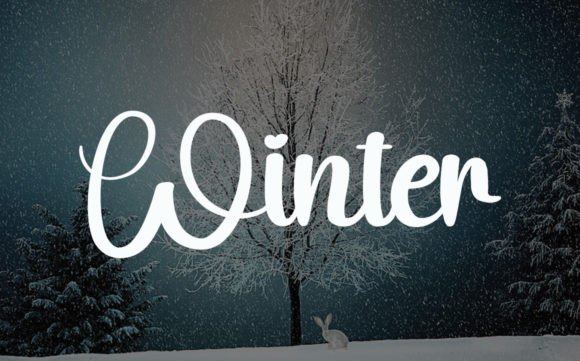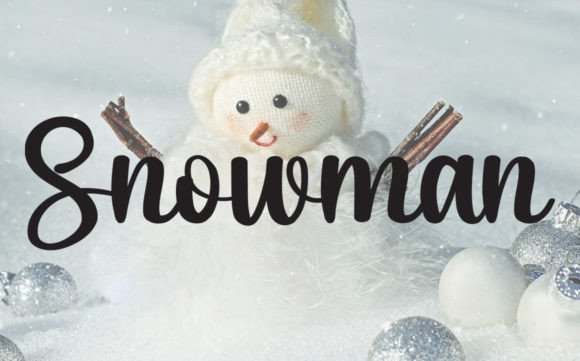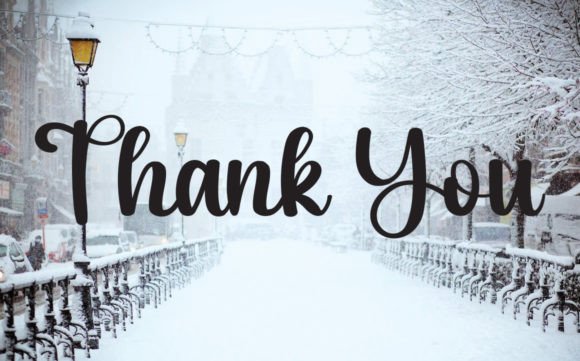
Snowfall Font
The Snowfall Font Download is a sweet and delicate handwritten script designed to add romance and beauty to your projects. With dainty, joyful strokes and a soft handwritten flow, this font creates warmth in every design. Whether you are working on wedding invitations, greeting cards, or digital graphics, Snowfall provides an elegant handwritten accent that enriches your creative work.
A Delicate Script with Romantic Style
The Snowfall script font combines graceful handwritten details with a balanced structure. As a result, it feels timeless, versatile, and stylish. Furthermore, it adapts easily between small stationery projects and larger branding work, making it suitable for hobbyists and professional designers alike.
Handwritten fonts always create intimacy and authenticity. The Snowfall Font is ideal for wedding invitations, thank you notes, birthday cards, and seasonal greetings. Because of its dainty handwritten character, every card looks heartfelt and polished. In addition, it ensures your stationery leaves a lasting romantic impression.
Branding and Logo Design with Snowfall Font
Typography defines brand personality. The Snowfall handwritten font is excellent for boutique logos, packaging, and promotional projects. Its handwritten elegance makes brands appear warm and approachable while keeping a professional edge. Therefore, it is especially effective for fashion, lifestyle, and wedding industries.
Posters, Titles, and Editorial Projects
The Snowfall Font Download also shines in posters, banners, magazines, and book covers. It stays legible across all sizes while adding handwritten sophistication. Consequently, it is a reliable option for designers who want beauty and readability in equal measure.
In the modern digital space, fonts must adapt to different platforms. The Snowfall typeface integrates seamlessly into Instagram posts, Pinterest graphics, YouTube thumbnails, and blogs. Because of its elegant handwritten strokes, it ensures that digital designs look graceful, romantic, and modern.
Why Designers Choose Snowfall Typeface
Designers value fonts that balance elegance with usability. The Snowfall handwritten script keeps its delicate style while remaining easy to read. This makes it an excellent choice for both professionals and casual creators. Moreover, its timeless handwritten energy ensures it will remain relevant for future projects.